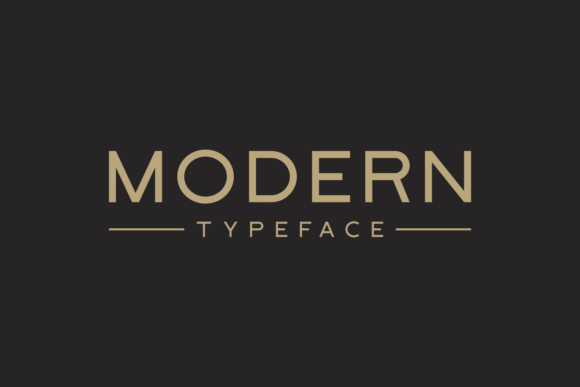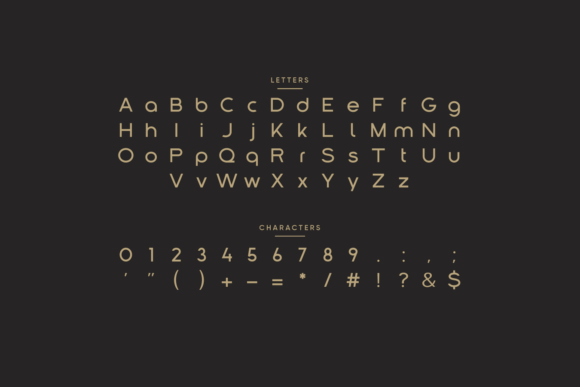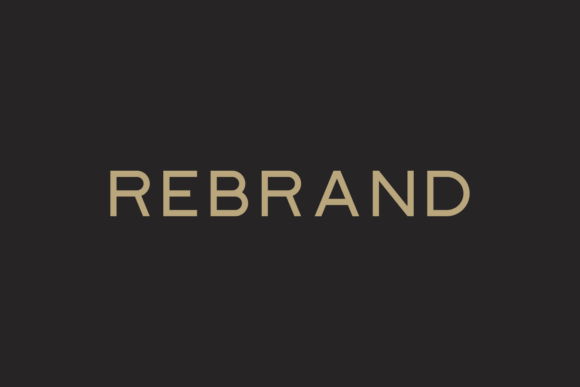
Introduction to Nordico Font
Proudly presenting Nordico, a bold and assertive sans serif font.
Proudly presenting Nordico, a bold and assertive sans serif font. No matter the topic, this font will be an incredible asset to your fonts’ library, as it has the potential to elevate any creation
Key Features of Nordico Font
Why Choose Nordico Font?
Nordico Font offers exceptional quality and versatility, making it a valuable addition to your design toolkit. Whether you’re creating for personal projects or commercial use, Nordico Font delivers professional results.